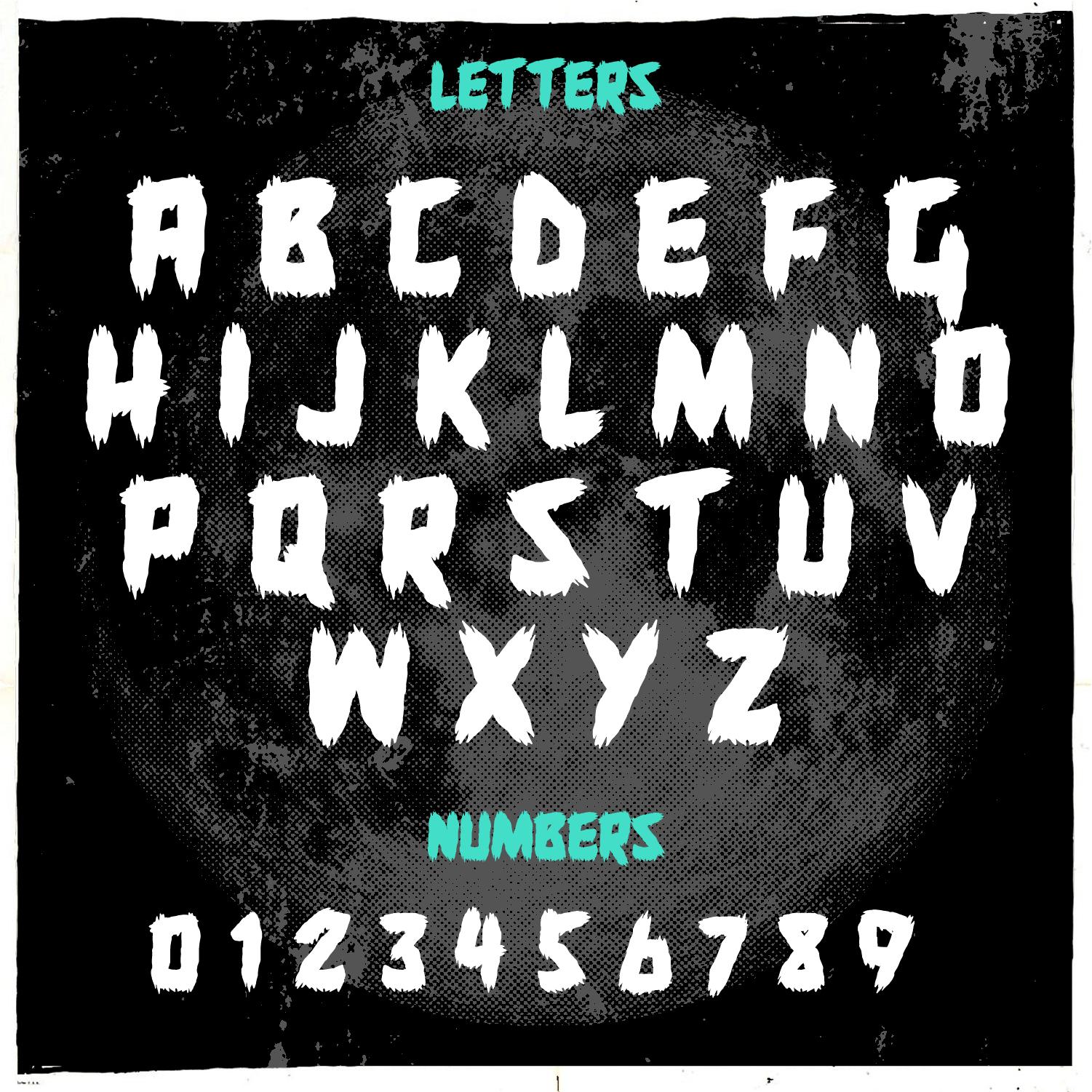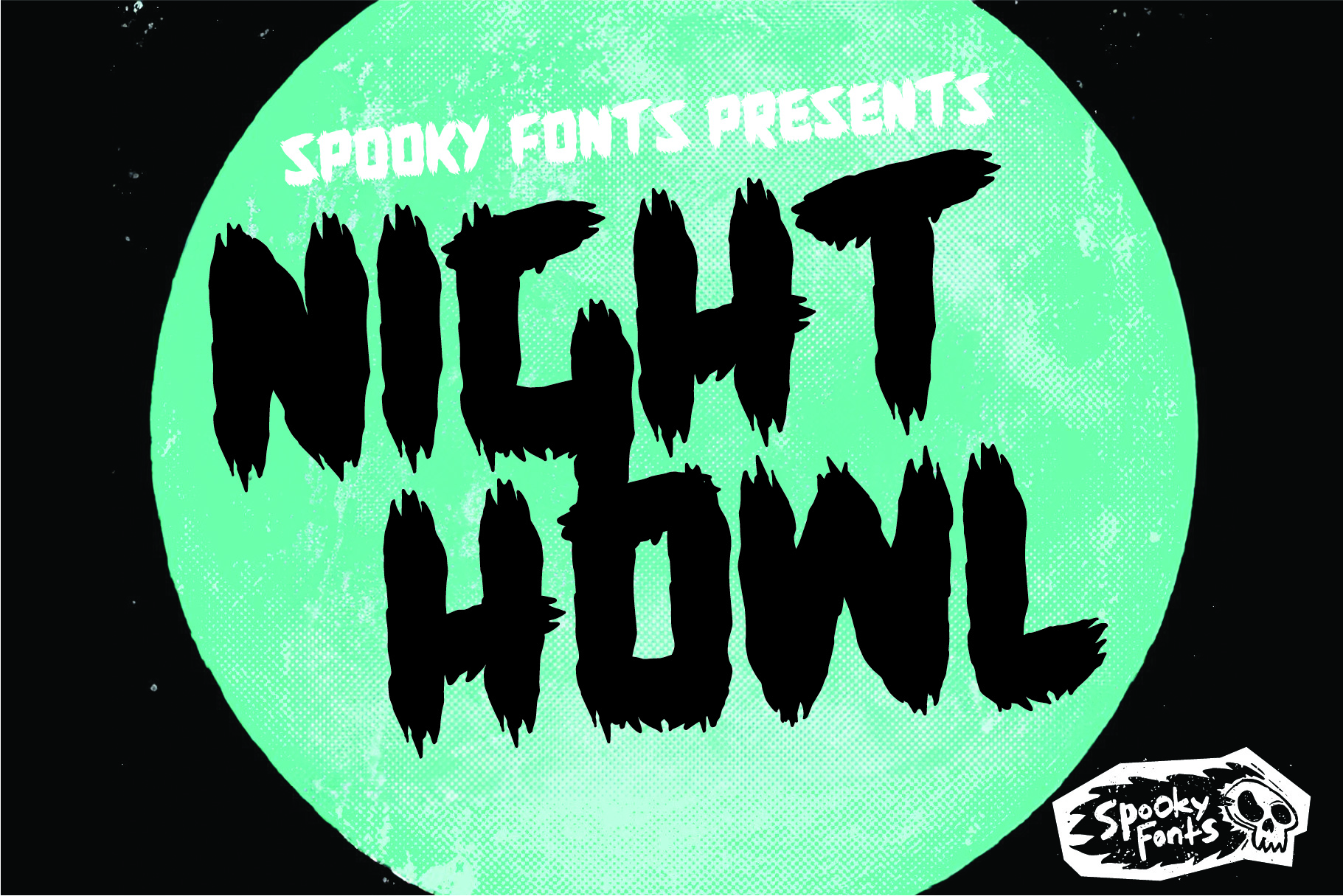
Night Howl
Chunky brush strokes amplify eerie vibes and instantly capture attention.
Introducing Night Howl, the perfect font for anyone looking to add a hauntingly spooky touch to their titles. Chunky brush strokes amplify eerie vibes and instantly capture attention. Its bold letter-shapes make it highly readable, meaning your message won’t be lost even in the dark. Night Howl is sure to get instant recognition and shock value!